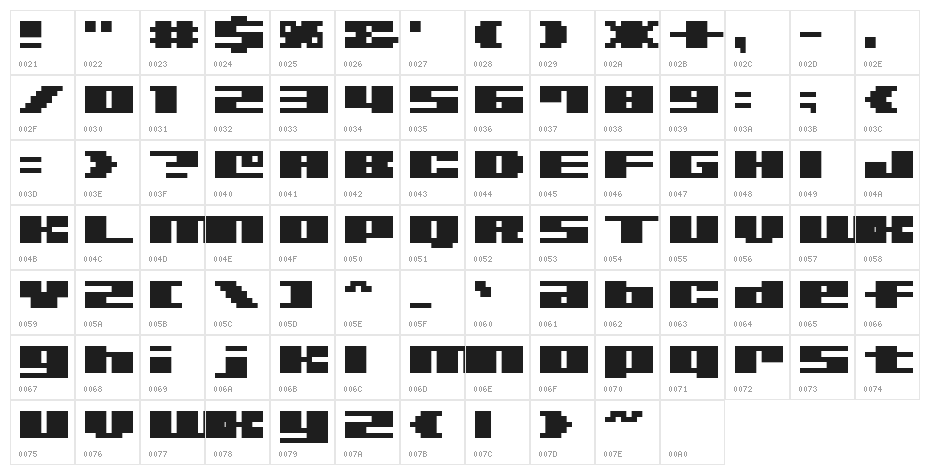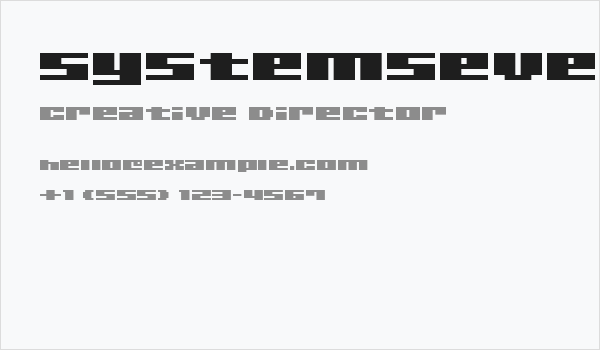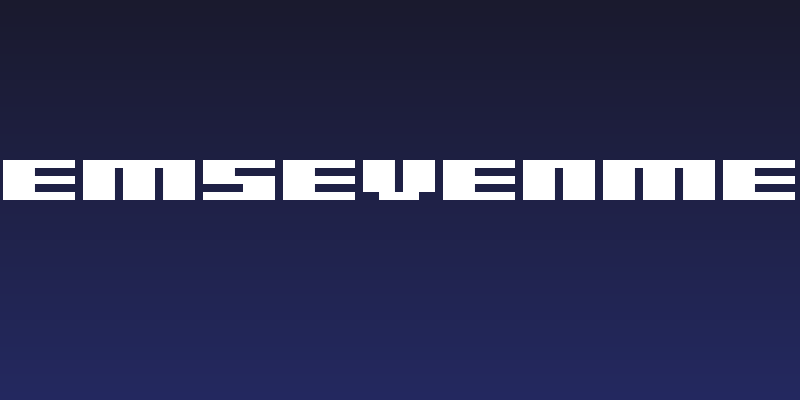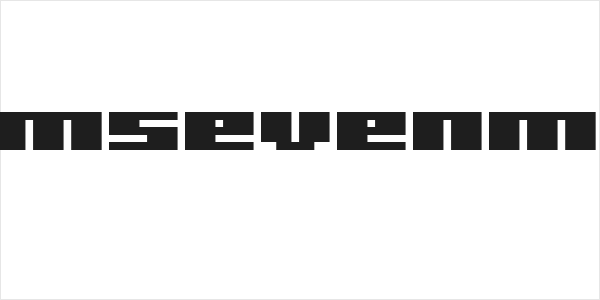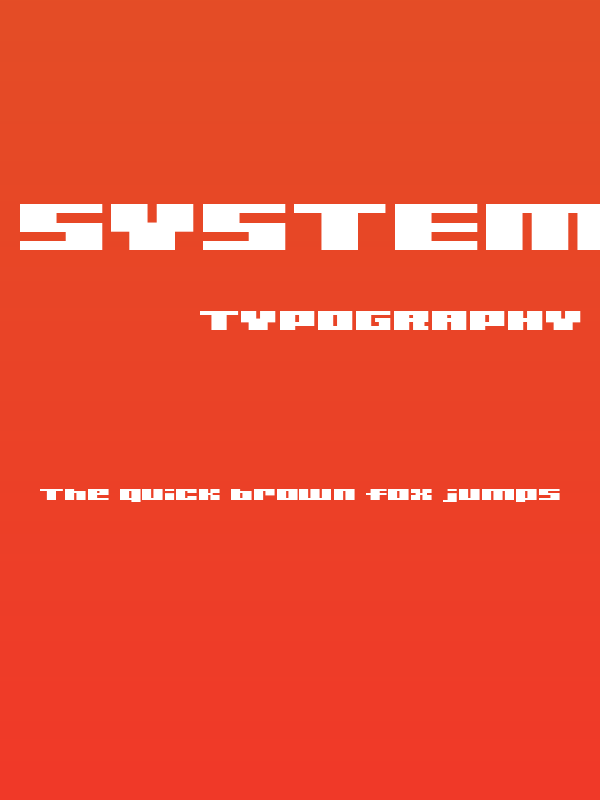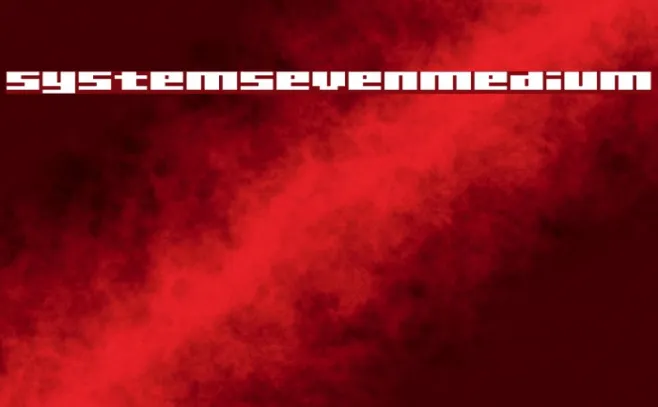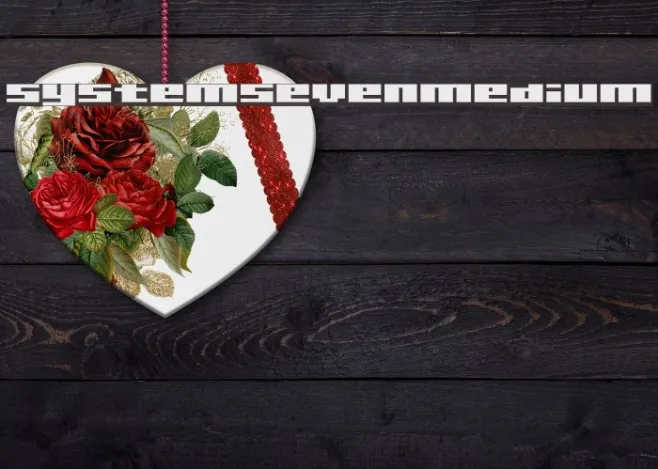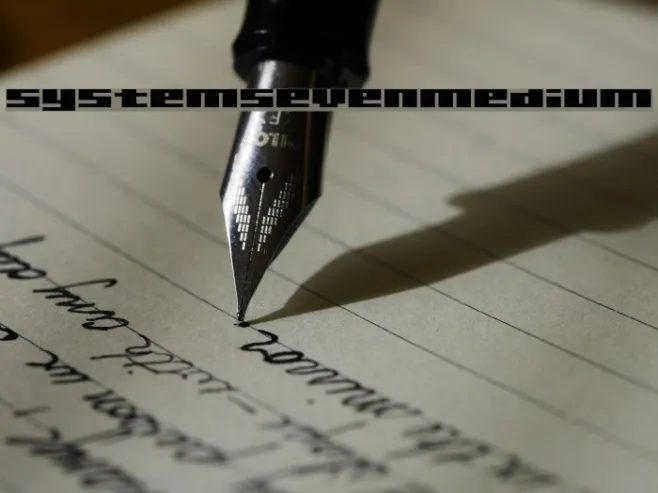
SystemSevenMedium Font
SystemSevenMedium Description
This font features a bold, geometric style with a blocky, pixelated appearance. The characters are uniform in width, giving it a monospaced feel, though it is not strictly monospaced. The uppercase and lowercase letters maintain a consistent height, adding to the uniformity. The numbers and special characters follow the same design principles, ensuring a cohesive look across all glyphs. The font's design is reminiscent of retro digital displays or early computer graphics, making it ideal for projects that require a vintage or tech-inspired aesthetic.
| Proposed Projects | Ideal for video game design, tech-themed posters, retro branding, and digital art projects. |